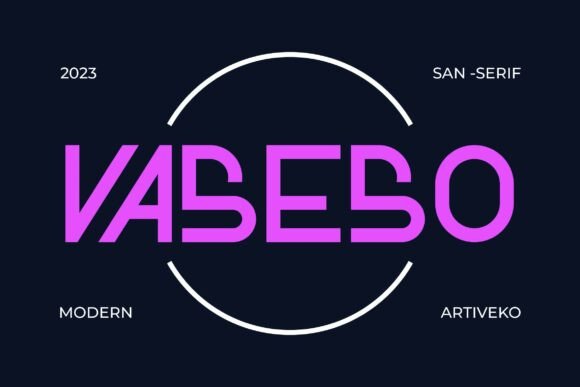
Vaseso Font: The Ultimate Geometric Sans Serif for Modern Design
In the world of typography, fonts play a crucial role in conveying messages, expressing emotions, and creating visual identities. Among the numerous font styles available, geometric sans serif fonts have gained immense popularity in recent years, particularly in modern design. One such font that has caught the attention of designers and typography enthusiasts is Vaseso. In this article, we’ll delve into the world of Vaseso Font, exploring its features, benefits, and applications.
Vaseso Font: A Clean and Modern Geometric Sans Serif
Vaseso is a clean and modern geometric sans serif font designed for clarity, structure, and visual balance. Built on perfect circles and straight lines, Vaseso delivers a sleek, contemporary feel thatβs perfect for branding, tech interfaces, editorial design, logos, and minimalist packaging. The font’s geometric construction ensures a high level of legibility, making it suitable for a wide range of applications, from digital screens to print materials.
Key Features of Vaseso Font
- Geometric Construction: Vaseso is built on perfect circles and straight lines, giving it a clean and modern look.
- High Legibility: The font’s geometric construction and simple shapes ensure high legibility, even at small sizes.
- Versatility: Vaseso is suitable for a wide range of applications, including branding, tech interfaces, editorial design, logos, and minimalist packaging.
- Clean and Modern Aesthetic: Vaseso’s sleek and contemporary design makes it perfect for modern design projects.
Applications of Vaseso Font
Vaseso’s versatility and clean design make it suitable for various applications. Here are some of the areas where Vaseso excels:
- Branding: Vaseso’s modern and sleek design makes it perfect for branding projects, including logos, business cards, and letterheads.
- Tech Interfaces: The font’s high legibility and clean design make it suitable for tech interfaces, including mobile apps, websites, and software.
- Editorial Design: Vaseso’s elegant and refined design makes it suitable for editorial design projects, including magazines, newspapers, and books.
- Logos: The font’s simple and geometric construction makes it perfect for logo design, providing a clean and modern look.
- Minimalist Packaging: Vaseso’s clean and modern design makes it suitable for minimalist packaging projects, including product labels and packaging materials.
Typography Tips for Using Vaseso Font
To get the most out of Vaseso Font, here are some typography tips to keep in mind:
- Pair with Other Fonts: Vaseso can be paired with other fonts to create a unique and visually appealing typography. Consider pairing it with serif fonts for a classic look or with other sans serif fonts for a modern feel.
- Use Proper Line Spacing: Proper line spacing is essential to ensure readability. Use a line spacing of at least 1.2 to 1.5 times the font size.
- Adjust Font Size: Adjust the font size according to the application. For example, use a larger font size for headings and a smaller font size for body text.
- Consider Font Color: Choose a font color that complements the design and background. Vaseso works well with a range of colors, from bright and bold to neutral and subtle.
Design Inspiration: How to Use Vaseso Font
Vaseso Font can be used in a variety of design projects, from simple and minimalist to complex and bold. Here are some design inspiration ideas to get you started:
- Minimalist Poster Design: Use Vaseso Font to create a minimalist poster design that showcases a clear and concise message.
- Modern Website Design: Use Vaseso Font to create a modern website design that features a clean and elegant typography.
- Elegant Logo Design: Use Vaseso Font to create an elegant logo design that features a simple and geometric construction.
- Editorial Design: Use Vaseso Font to create an editorial design project that features a refined and elegant typography.
In conclusion, Vaseso Font is a versatile and modern geometric sans serif font that is perfect for a wide range of design applications. Its clean and elegant design, high legibility, and geometric construction make it suitable for branding, tech interfaces, editorial design, logos, and minimalist packaging. By following the typography tips and design inspiration ideas outlined in this article, you can get the most out of Vaseso Font and create stunning design projects that showcase your creativity and skill.